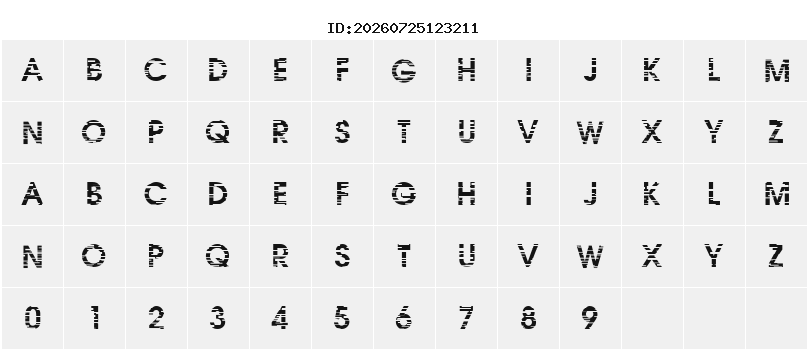
IxatNW Preview
• Font Name: IxatNW
• Full Font Name: IxatNW
About IxatNW.ttf
IxatNW.ttf is a modern, elegant sans-serif font designed for ultimate readability and visual harmony. Perfect for branding, headlines, web design, and print materials.